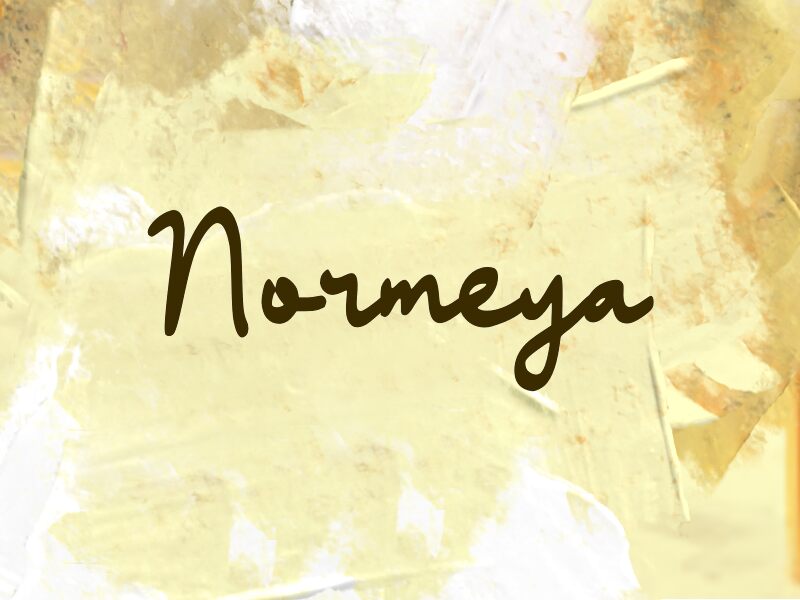
Normeya font by wep is a handwritten free font created with fluid motion. Its casual aesthetic and organic vibe communicate a relaxed mood and approachable feel. The contemporary style is perfect for personal use in branding or creative projects. The letters are beautifully handwritten and they contain both lowercase and uppercase in addition to numbers and symbols.
Personal branding, product packaging, flyer designs, shop signs, and business cards would well reflect the casual style of this handwritten font. Normeya can also be used in book or magazine covers, book interior designs, stationery, and invitation cards.
Normeya is a striking and elegant font designed to enhance your design projects. This free font is perfect for various applications, including logos, headlines, and social media graphics. Its unique characteristics make it an excellent choice for those seeking to add a touch of sophistication and personality to their work.